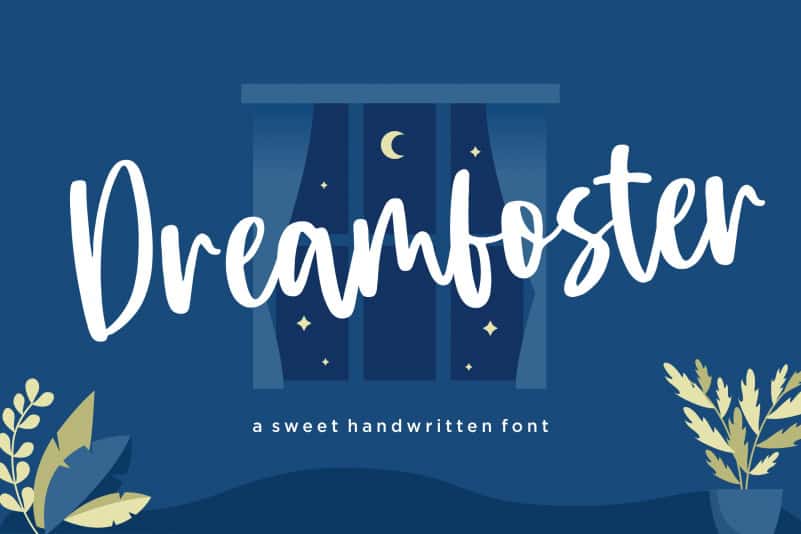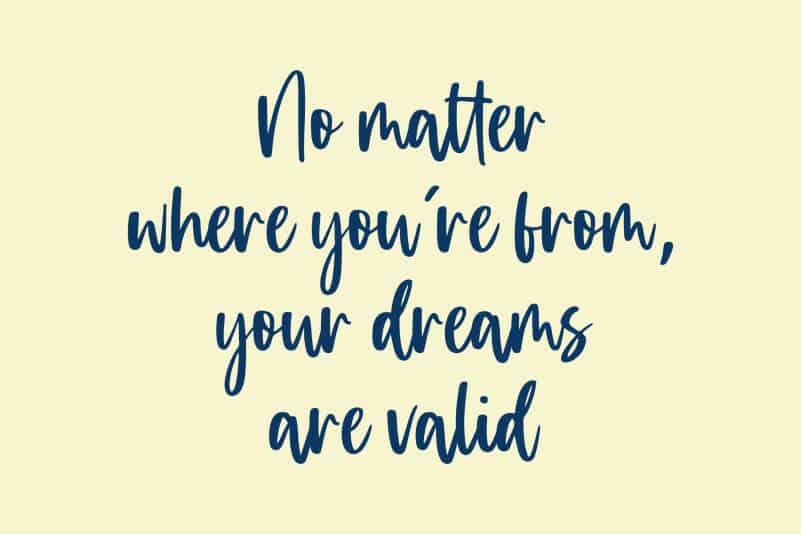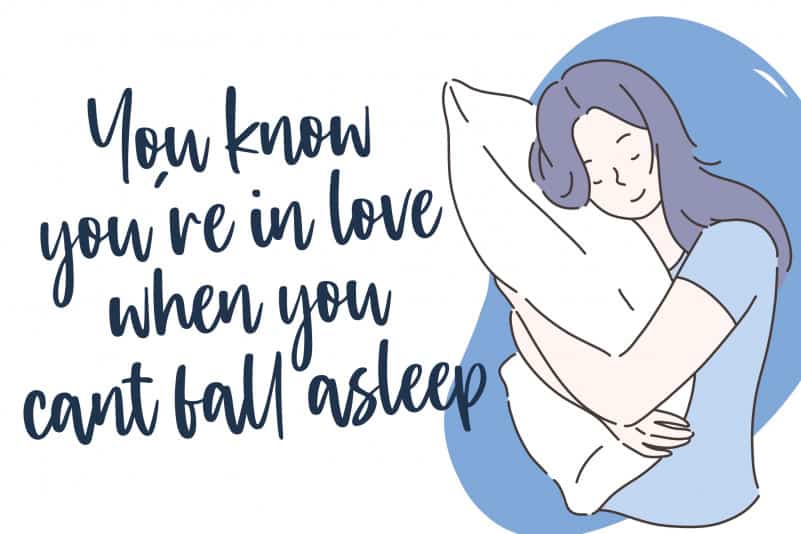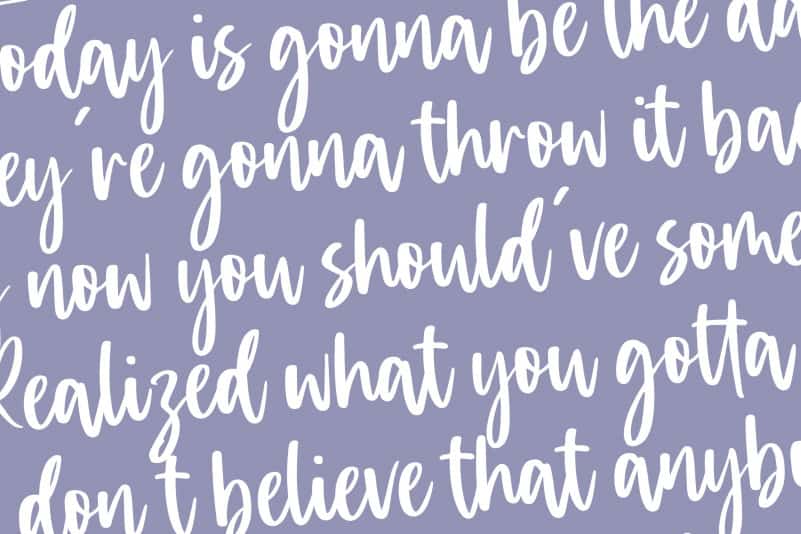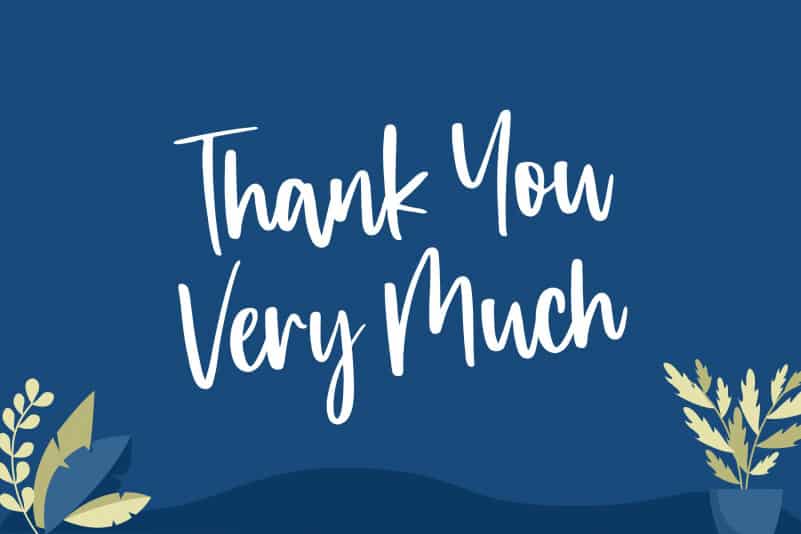
Dreamfoster Sweet Handwritten Font
Proudly Present, Dreamfoster Sweet Handwritten Font.
Dreamfoster is a Sweet Handwritten font.
It is perfect for product packaging, branding project, megazine, social media, wedding, or just used to express words above the background.